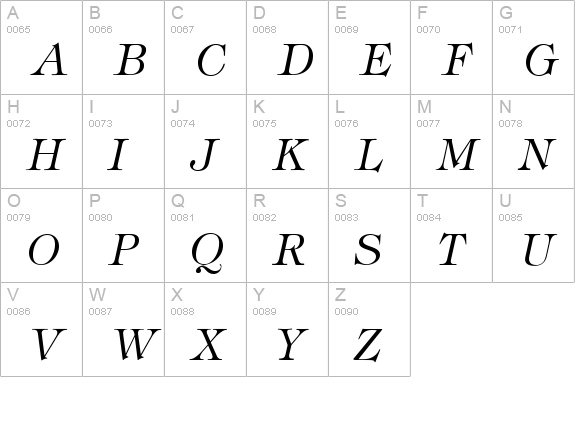
TiffanyLightItalic Font Details
TiffanyLightItalic is a stunning and elegant font that exudes a sense of sophistication and grace. Its delicate and flowing italic style adds a touch of elegance to any design project. With its slim and graceful letterforms, this font is perfect for adding a touch of class to invitations, wedding stationery, logos, and headlines. One of the best features of TiffanyLightItalic is that it is free. Yes, you read that right! This beautiful font is freely available to download at FontsMarket.com, making it accessible to everyone who wants to add a touch of elegance to their projects. Whether you are a professional designer or a casual user, you can now enjoy the luxury of using this exquisite font without any cost. The versatility of TiffanyLightItalic is another reason why it is a must-have font. Its clean and legible design makes it suitable for both print and digital media. From print advertisements to website headers, this font is guaranteed to make a lasting impression. The attention to detail in TiffanyLightItalic is truly remarkable. Each letterform is meticulously crafted, ensuring a harmonious flow from one character to another. The slight curves and delicate strokes create a sense of movement and fluidity, adding a touch of sophistication to any project. Whether you are designing a wedding invitation or creating a branding identity, TiffanyLightItalic will elevate your work to new heights. Its timeless beauty and effortless elegance will captivate the eyes of your audience, leaving a lasting impression. So why wait? Download TiffanyLightItalic for free at FontsMarket.com and add a touch of sophistication to your designs today. Experience the beauty and versatility of this font and let your creativity soar.